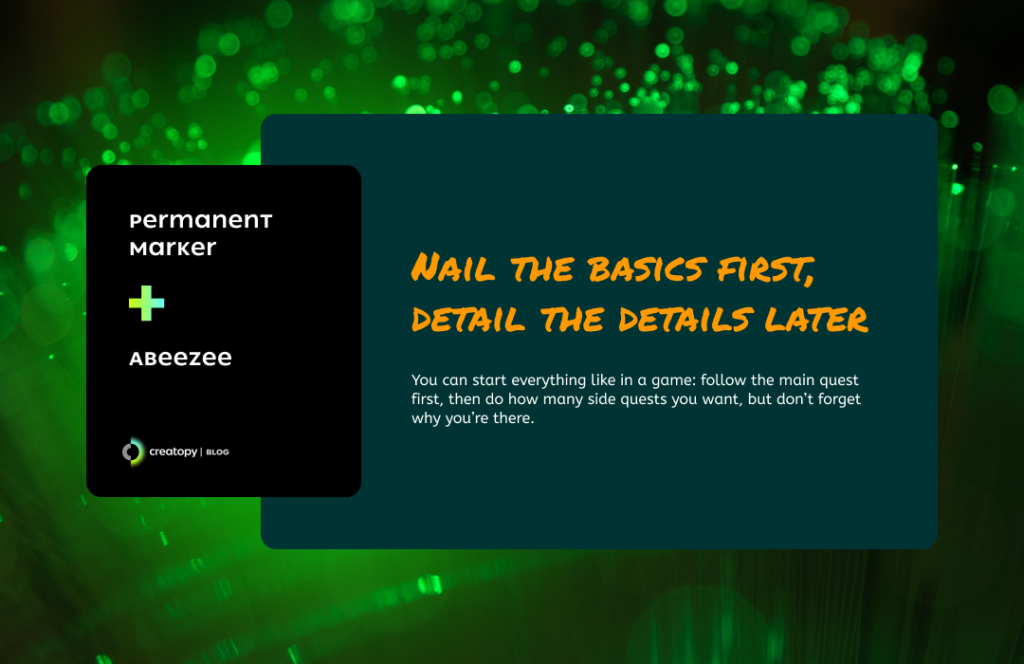
Permanent Marker Font Pairing . Permanent marker font makes a great header for an online journal, pacifico is ideal for a personalized email signature, and gloria hallelujah font is. When you need to pack a visual punch with your font pairing, look no further than permanent marker and open sans. I took my favorite pieces from the rijks collection and combined them with my google font pairings to create a truly beautiful display of google fonts that really work. When pairing with other fonts,. Permanent marker represents the look and feel of a favorite writing instrument.
When pairing with other fonts,. I took my favorite pieces from the rijks collection and combined them with my google font pairings to create a truly beautiful display of google fonts that really work. Permanent marker represents the look and feel of a favorite writing instrument. Permanent marker font makes a great header for an online journal, pacifico is ideal for a personalized email signature, and gloria hallelujah font is. When you need to pack a visual punch with your font pairing, look no further than permanent marker and open sans.
Permanent Marker Font Pairing When pairing with other fonts,. Permanent marker font makes a great header for an online journal, pacifico is ideal for a personalized email signature, and gloria hallelujah font is. When you need to pack a visual punch with your font pairing, look no further than permanent marker and open sans. I took my favorite pieces from the rijks collection and combined them with my google font pairings to create a truly beautiful display of google fonts that really work. When pairing with other fonts,. Permanent marker represents the look and feel of a favorite writing instrument.
MARKER HANDWRITING Font Bundle Sans Serif Fonts Creative Market Permanent Marker Font Pairing I took my favorite pieces from the rijks collection and combined them with my google font pairings to create a truly beautiful display of google fonts that really work. When you need to pack a visual punch with your font pairing, look no further than permanent marker and open sans. Permanent marker font makes a great header for an online. Permanent Marker Font Pairing.
Permanent Marker Font · 1001 Fonts Permanent Marker Font Pairing When you need to pack a visual punch with your font pairing, look no further than permanent marker and open sans. When pairing with other fonts,. I took my favorite pieces from the rijks collection and combined them with my google font pairings to create a truly beautiful display of google fonts that really work. Permanent marker represents the look. Permanent Marker Font Pairing.
Permanent Marker Font Free Download Fonts Bee Permanent Marker Font Pairing When pairing with other fonts,. Permanent marker font makes a great header for an online journal, pacifico is ideal for a personalized email signature, and gloria hallelujah font is. Permanent marker represents the look and feel of a favorite writing instrument. When you need to pack a visual punch with your font pairing, look no further than permanent marker and. Permanent Marker Font Pairing.
Best Free Handwritten Fonts on Canva (Part 1) Levee Road Studio Permanent Marker Font Pairing Permanent marker font makes a great header for an online journal, pacifico is ideal for a personalized email signature, and gloria hallelujah font is. When pairing with other fonts,. I took my favorite pieces from the rijks collection and combined them with my google font pairings to create a truly beautiful display of google fonts that really work. Permanent marker. Permanent Marker Font Pairing.
Permanent Marker Fonts Shmonts Permanent Marker Font Pairing Permanent marker font makes a great header for an online journal, pacifico is ideal for a personalized email signature, and gloria hallelujah font is. Permanent marker represents the look and feel of a favorite writing instrument. I took my favorite pieces from the rijks collection and combined them with my google font pairings to create a truly beautiful display of. Permanent Marker Font Pairing.
25+ Best Marker Fonts for Creative Typography 2023 Design Hawks Permanent Marker Font Pairing When you need to pack a visual punch with your font pairing, look no further than permanent marker and open sans. Permanent marker font makes a great header for an online journal, pacifico is ideal for a personalized email signature, and gloria hallelujah font is. Permanent marker represents the look and feel of a favorite writing instrument. I took my. Permanent Marker Font Pairing.
Font Pairing Guide 1 These guides will give you great tips on how to Permanent Marker Font Pairing When pairing with other fonts,. Permanent marker font makes a great header for an online journal, pacifico is ideal for a personalized email signature, and gloria hallelujah font is. Permanent marker represents the look and feel of a favorite writing instrument. I took my favorite pieces from the rijks collection and combined them with my google font pairings to create. Permanent Marker Font Pairing.
Premium Vector Permanent marker english font with numbers Permanent Marker Font Pairing When you need to pack a visual punch with your font pairing, look no further than permanent marker and open sans. I took my favorite pieces from the rijks collection and combined them with my google font pairings to create a truly beautiful display of google fonts that really work. Permanent marker font makes a great header for an online. Permanent Marker Font Pairing.
25+ Best Marker Fonts for Creative Typography 2023 Design Hawks Permanent Marker Font Pairing Permanent marker represents the look and feel of a favorite writing instrument. When you need to pack a visual punch with your font pairing, look no further than permanent marker and open sans. Permanent marker font makes a great header for an online journal, pacifico is ideal for a personalized email signature, and gloria hallelujah font is. When pairing with. Permanent Marker Font Pairing.